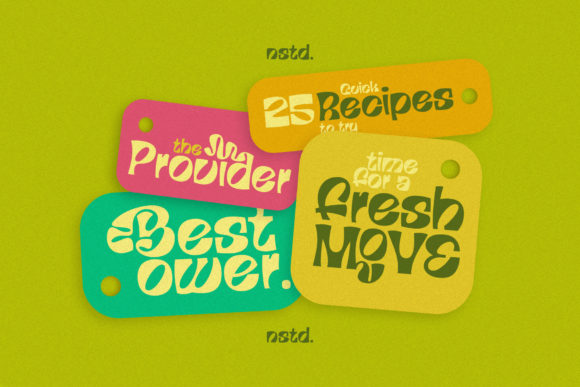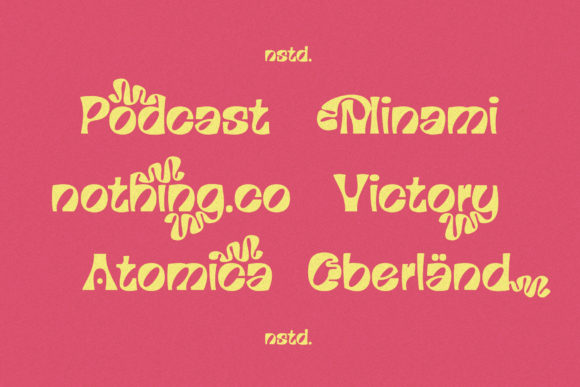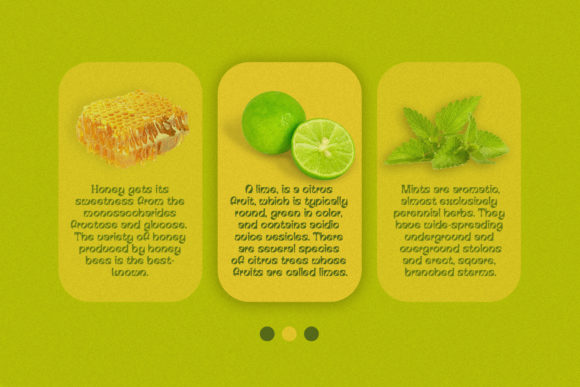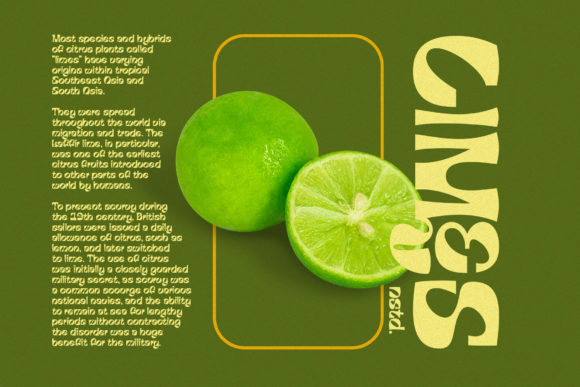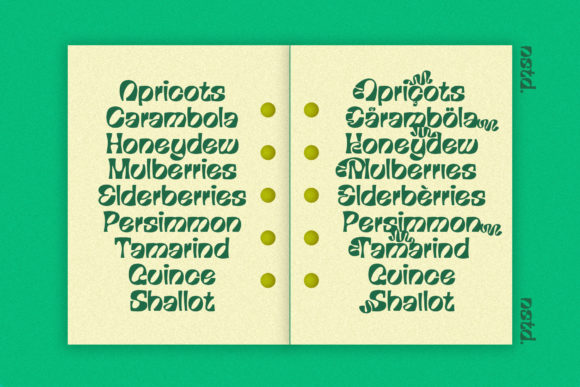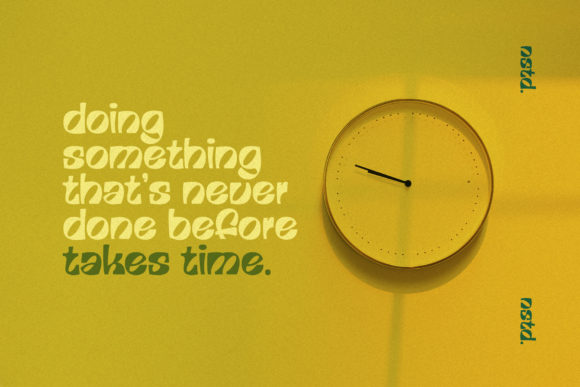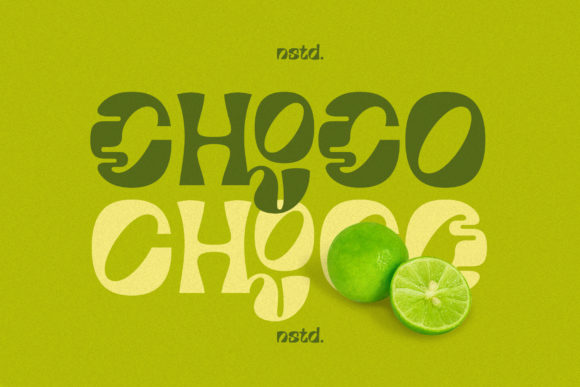
Introducing ChocoChoco Font: The Quirky and Whimsical Display Font
Are you tired of using the same old fonts in your designs? Look no further than ChocoChoco Font, a quirky and whimsical display font that’s sure to make your projects stand out. With its unique characteristics and sweet, full-of-life style, ChocoChoco is the perfect choice for designers and crafters looking to add a touch of personality to their work.
What Makes ChocoChoco Font So Special?
ChocoChoco Font is a one-of-a-kind display font that’s designed to make your projects look out of this world. Its quirky and whimsical style is sure to capture the attention of your audience and leave a lasting impression. Whether you’re working on a branding project, a children’s book, or a craft project, ChocoChoco Font is the perfect choice.
Unique Characteristics of ChocoChoco Font
So, what sets ChocoChoco Font apart from other fonts? Here are just a few of its unique characteristics:
- Quirky and Whimsical Style: ChocoChoco Font has a playful, carefree style that’s sure to add a touch of personality to your designs.
- Unique Letterforms: Each letter in ChocoChoco Font has its own unique characteristics, making it a standout choice for designers and crafters.
- Sweet and Full-of-Life Style: ChocoChoco Font has a sweet, lively style that’s perfect for projects that require a touch of whimsy and fun.
ChocoChoco Font is a versatile font that’s perfect for a wide range of design and crafting projects. Here are just a few ideas to get you started:
- Branding Projects: Use ChocoChoco Font to create eye-catching logos, business cards, and marketing materials that showcase your brand’s personality.
- Children’s Books: ChocoChoco Font is a great choice for children’s books, adding a touch of whimsy and fun to your story.
- Craft Projects: Use ChocoChoco Font to add a personal touch to your craft projects, such as handmade cards, scrapbooking, and DIY decor.
- Pair with Other Fonts: ChocoChoco Font pairs well with other fonts, so feel free to experiment with different combinations to find the perfect look for your project.
- Use for Headings and Titles: ChocoChoco Font is perfect for headings and titles, adding a touch of personality to your text.
- Experiment with Colors: ChocoChoco Font looks great in a variety of colors, so don’t be afraid to experiment and find the perfect hue for your project.
In conclusion, ChocoChoco Font is a quirky and whimsical display font that’s sure to add a touch of personality to your designs. With its unique characteristics, sweet and full-of-life style, and versatility, ChocoChoco Font is the perfect choice for designers and crafters looking to make their projects stand out. So why wait? Give ChocoChoco Font a try today and see the difference it can make in your work!